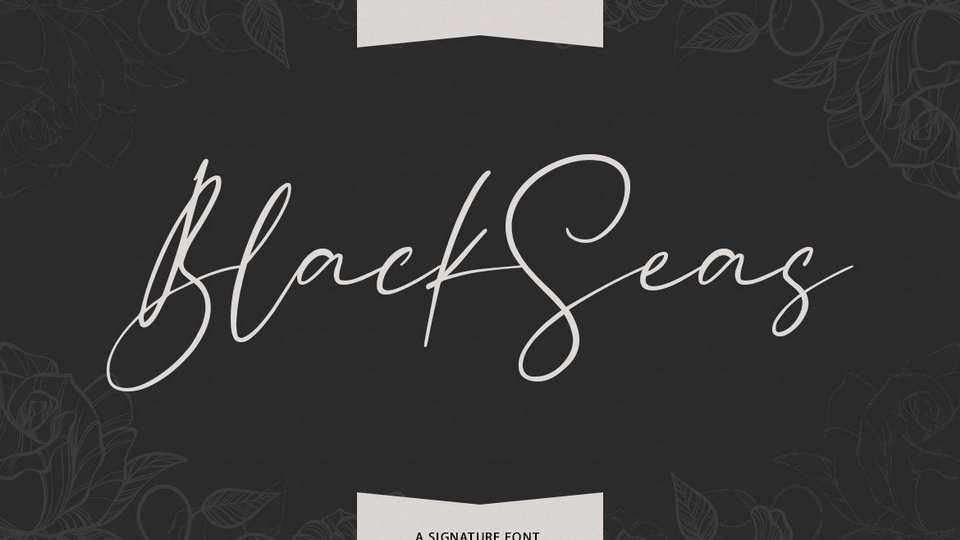
Blackseas Signature Font › Fontesk – Download Grátis
Download Blackseas font, a gorgeous and modern script that will give your designs a handcrafted and authentic feel. Blackseas is perfectly suited to signature, logo, typography quotes, magazine or book cover and more.
Designer: Maulana Creative